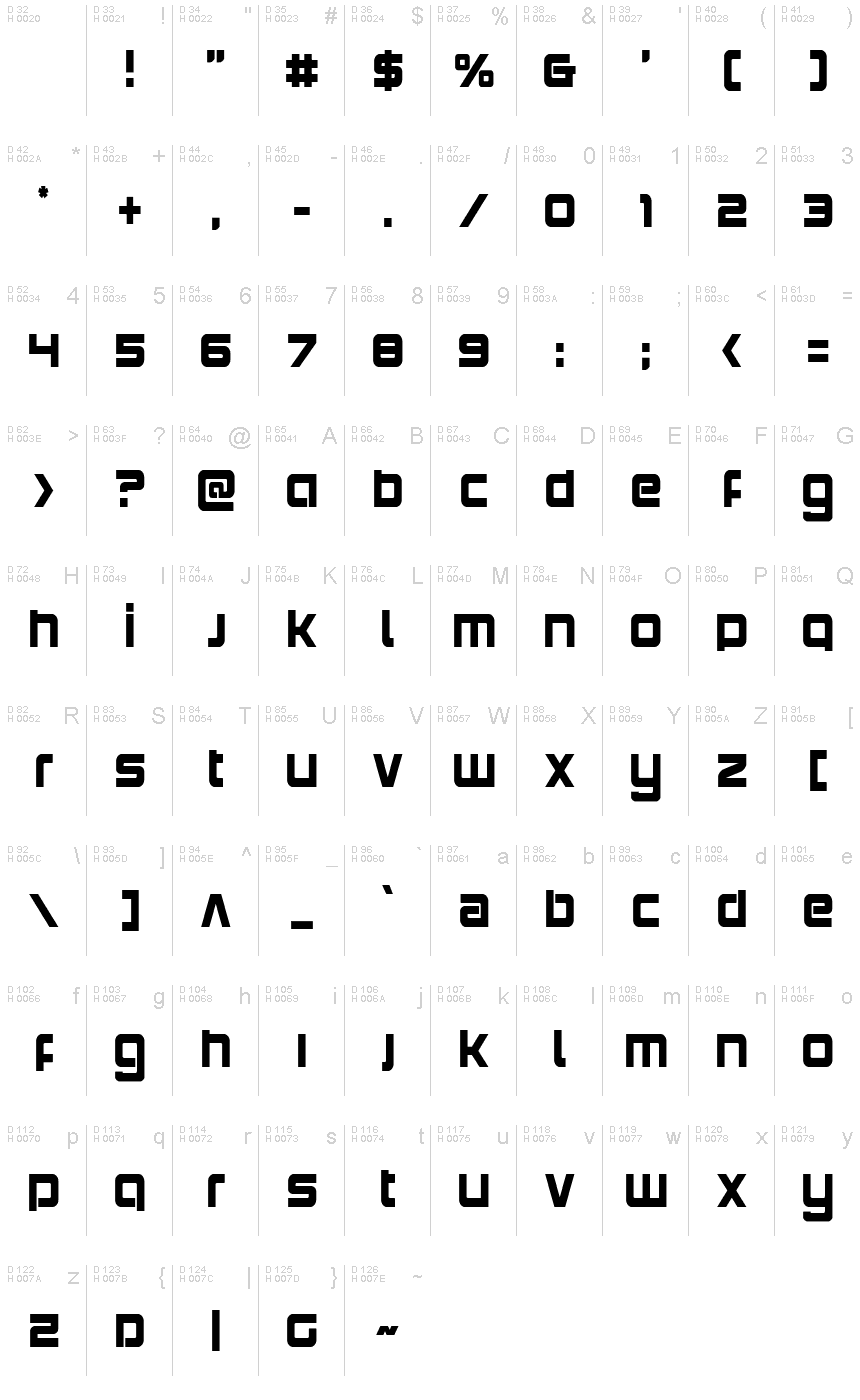
Yielding Timber Condensed
Introducing Yielding Timber Condensed, a bold and striking display font designed by Daniel Zadorozny. With its techno-inspired style, this font is perfect for projects that require a modern and futuristic look. Its semi-expanded width adds an extra touch of uniqueness to your designs without compromising readability. Yielding Timber Condensed is ideal for branding, packaging, apparel design, and music album covers. Be bold and daring with your design choices by incorporating Yielding Timber Condensed into your next project. Make a statement with this eye-catching font!